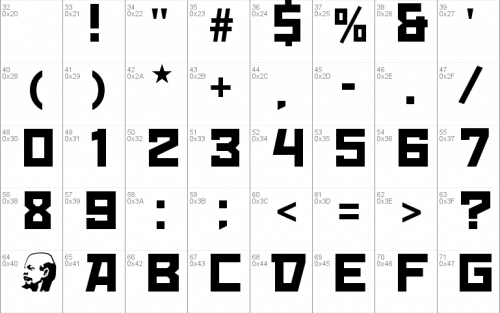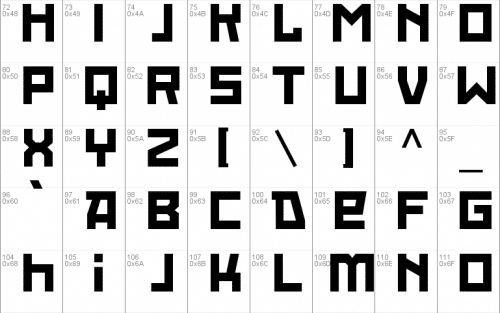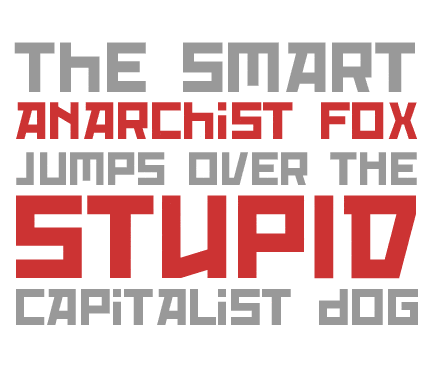
Red October is a constructivist typeface inspired by Soviet propaganda posters. It turns out to be quite popular – most notably in American movies like R.E.D, Die Hard 5 and Repo – The Genetic Opera, as well as on the cover of Rihanna’s single “Russian Roulette” and as a logo of the famous Puerto Rican band Calle 13.